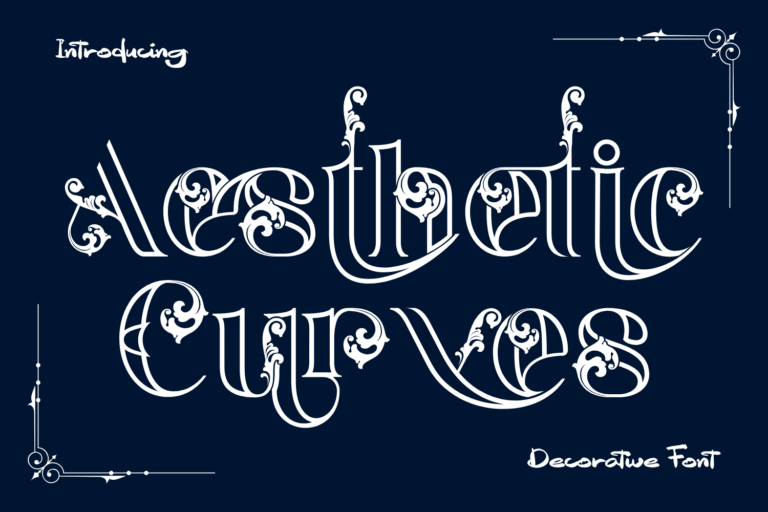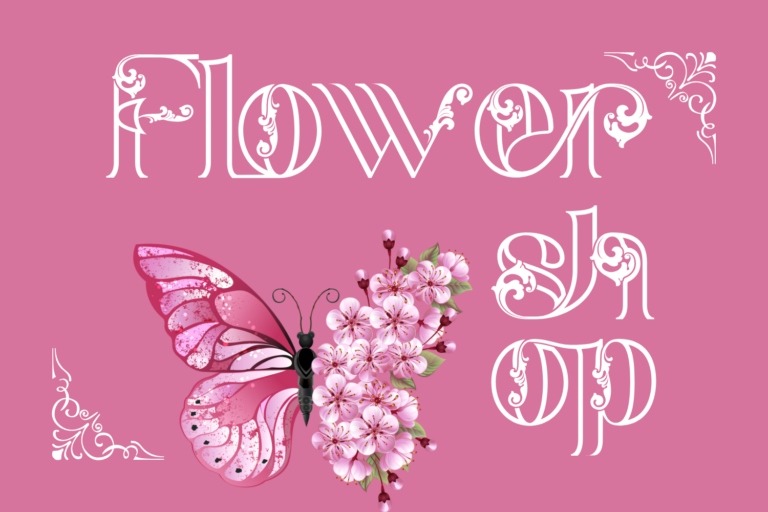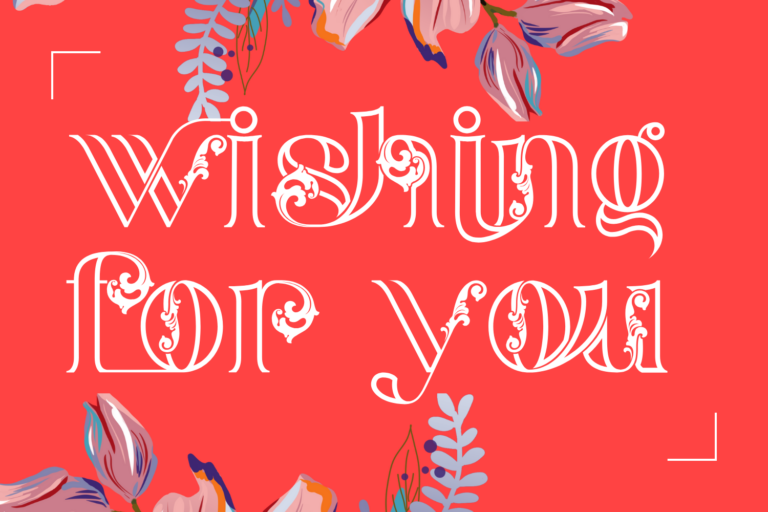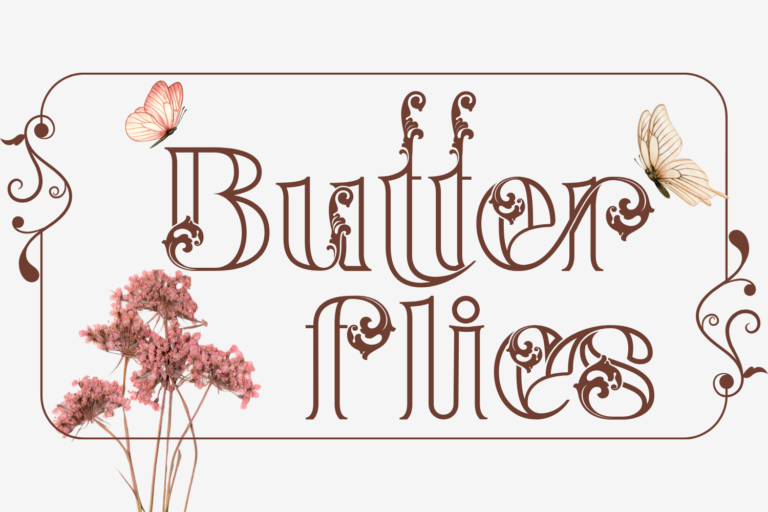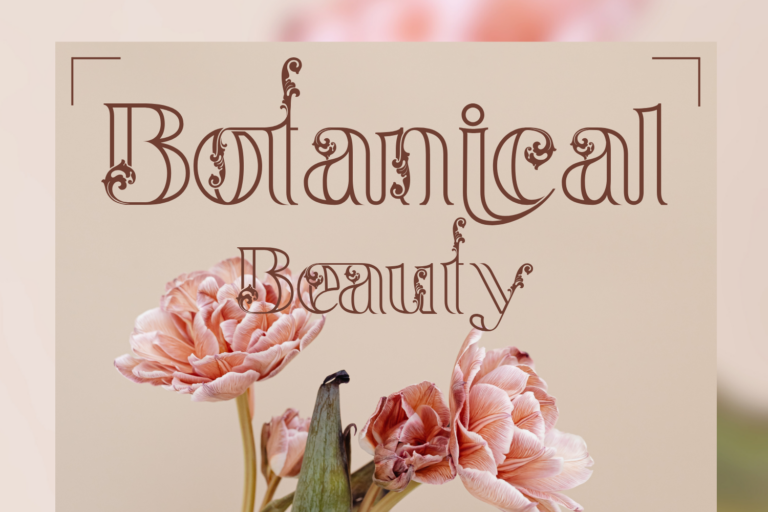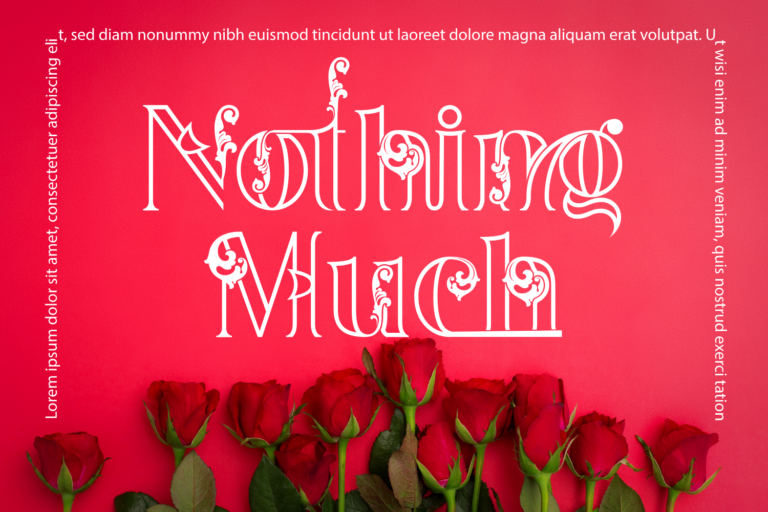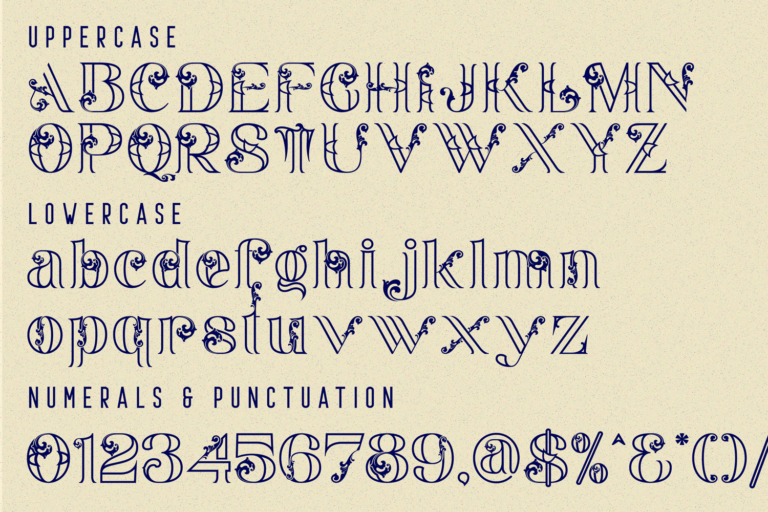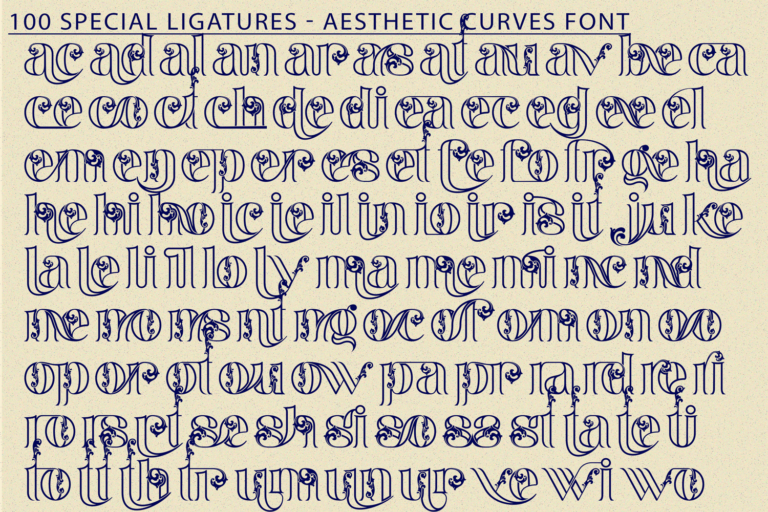
Aesthetic Curves – Gothic Font is an ornamental blackletter display typeface infused with Baroque elegance and modern sophistication. Its intricate swashes, high-contrast stems, and decorative flourishes are designed to evoke an opulent, royal aesthetic—perfect for those seeking grandeur and drama in their typography. Every glyph in Aesthetic Curves is a miniature work of art, with floral embellishments wrapping around traditional Gothic forms, creating a harmonious balance between darkness and grace.
Font Features:
• Full set of Uppercase & Lowercase Characters
• 100+ Handcrafted Ligatures & Swashes
• Numerals, Punctuation & Extended Language Support
• Perfect for logos, book covers, posters, tattoos, luxury branding, or gothic-themed artworks
ac ad al an ar as at au av be ca ce ch co ct de di ea ec ed ee el em en ep er es et fe fo fr ge ha he hi ho ie ic il in io ir is it ju ke la le li ll lo ly ma me mi nc nd ne ng no nt ns oc of om on oo op or ot ou ow pa pr ra rd re ri ro rs rt se sh si so ss st ta te th ti to tr tt um un ur ve wi wo
Aesthetic Curves – Gothic Font